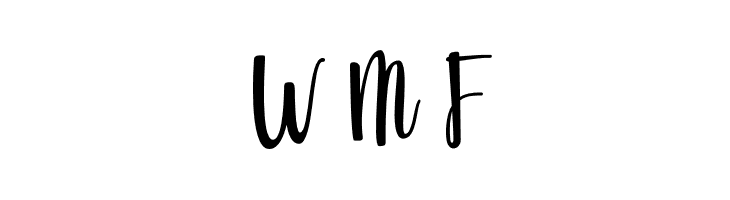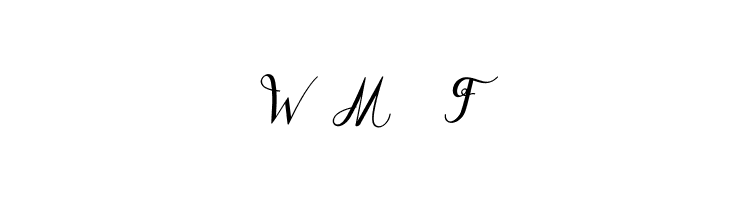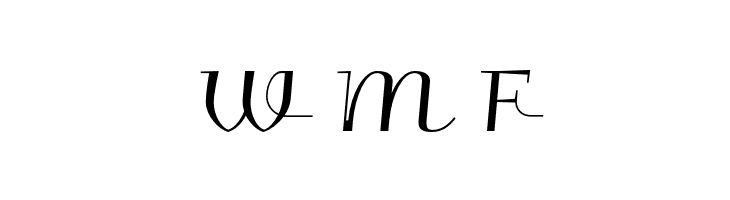
( David Cooper )
A bold, slightly condensed font with modern and vintage elements.
( Graphix Line Studio )
A sophisticated script font with elegant, flowing cursive letters.
( Greatbleast Mark - www.creativefabrica.com/ref/205906/ )
A playful, artistic script font with flowing cursive letters and decorative flourishes.
( Hanoded - David Kerkhoff - www.hanodedfonts.com )
A grungy, distressed font with a hand-painted, chaotic style.
( Just Font You - Ian Irwan Wismoyo - justfontyou.com/ )
A sophisticated, elegant cursive script with a modern touch.
( Marco Ballarè - www.marcoballare.com )
A playful, rounded font with smooth curves and a friendly appearance.
( Masinong Studio - creativemarket.com/masinong )
An elegant, flowing script font with a sophisticated cursive style.
( Mr Letters - fontbundles.net/mrletters/rel=mur3FT )
An elegant, flowing script font with smooth, connected strokes and a sophisticated appearance.
( Muhammad Muzammil - fontbundles.net/zoom37-creative )
An elegant script font with flowing, cursive style and intricate flourishes.
( Thirtypath - www.thirtypath.com )
A sophisticated script font with flowing, interconnected letters and elegant flourishes.
( Typhoon Type - Suthi Srisopha - www.typhoontype.net )
An elegant script font with intricate swashes and high contrast, perfect for formal and artistic uses.
( Typhoon Type - Suthi Srisopha - www.typhoontype.net )
An elegant script font with ornate, flowing letterforms and decorative swashes.
( Typhoon Type - Suthi Srisopha - www.typhoontype.net )
A decorative script font with elegant, flowing lines and calligraphic flourishes.
( Typhoon Type - Suthi Srisopha - www.typhoontype.net )
An elegant script font with flowing cursive letters and intricate swashes.
( Typhoon Type - Suthi Srisopha - www.typhoontype.net )
A lively script font with elegant flourishes and smooth, continuous strokes.
( Typhoon Type - Suthi Srisopha - www.typhoontype.net )
An elegant and flowing script font with classic cursive letterforms.
( Typhoon Type - Suthi Srisopha - www.typhoontype.net )
A bold, expressive script font with elegant flourishes and a handwritten feel.
( Typhoon Type - Suthi Srisopha - www.typhoontype.net )
An elegant and ornate script font with intricate swirls and flourishes.
( Typhoon Type - Suthi Srisopha - www.typhoontype.net )
A flowing, cursive script font with elegant loops and swashes.
( Typhoon Type - Suthi Srisopha - www.typhoontype.net )
A dynamic and elegant script font with flowing letterforms and intricate swashes.
( Typhoon Type - Suthi Srisopha - www.typhoontype.net )
A dynamic and expressive script font with fluid, elegant strokes.
( Typhoon Type - Suthi Srisopha - www.typhoontype.net )
A flowing, cursive script font with elegant loops and swashes.
( Typhoon Type - Suthi Srisopha - www.typhoontype.net )
A decorative cursive font with elegant, flowing strokes and artistic flourishes.
( Typhoon Type - Suthi Srisopha - www.typhoontype.net )
A cursive, handwritten font with elegant, flowing strokes.
( Typhoon Type - Suthi Srisopha - www.typhoontype.net )
A dynamic cursive font with bold, sweeping strokes and elegant curves.
( Typhoon Type - Suthi Srisopha - www.typhoontype.net )
An elegant, cursive font with ornate flourishes and a calligraphic style.
( Typhoon Type - Suthi Srisopha - www.typhoontype.net )
An elegant, cursive font with intricate flourishes and a classic calligraphic style.
( Typhoon Type - Suthi Srisopha - www.typhoontype.net )
A lively and elegant script font with flowing, cursive letterforms.
( Vladimir Fedotov )
A sophisticated, high-contrast font with elongated, narrow letterforms.
( Vladimir Fedotov )
A sophisticated, elegant handwritten font with a cursive style.
( Zach Dunton - DuntonPhoto.com )
A playful, hand-drawn font with a whimsical and artistic style.
( Zetafonts - www.zetafonts.com )
A thin, italicized font with elegant and sophisticated design.
( aqr typeface - Azra Qaireen - bit.ly/2M2eb7C )
An elegant script font with flowing, interconnected letters and refined details.
( gluk - Grzegorz l - www.glukfonts.pl )
A sophisticated script font with elegant, flowing letterforms.